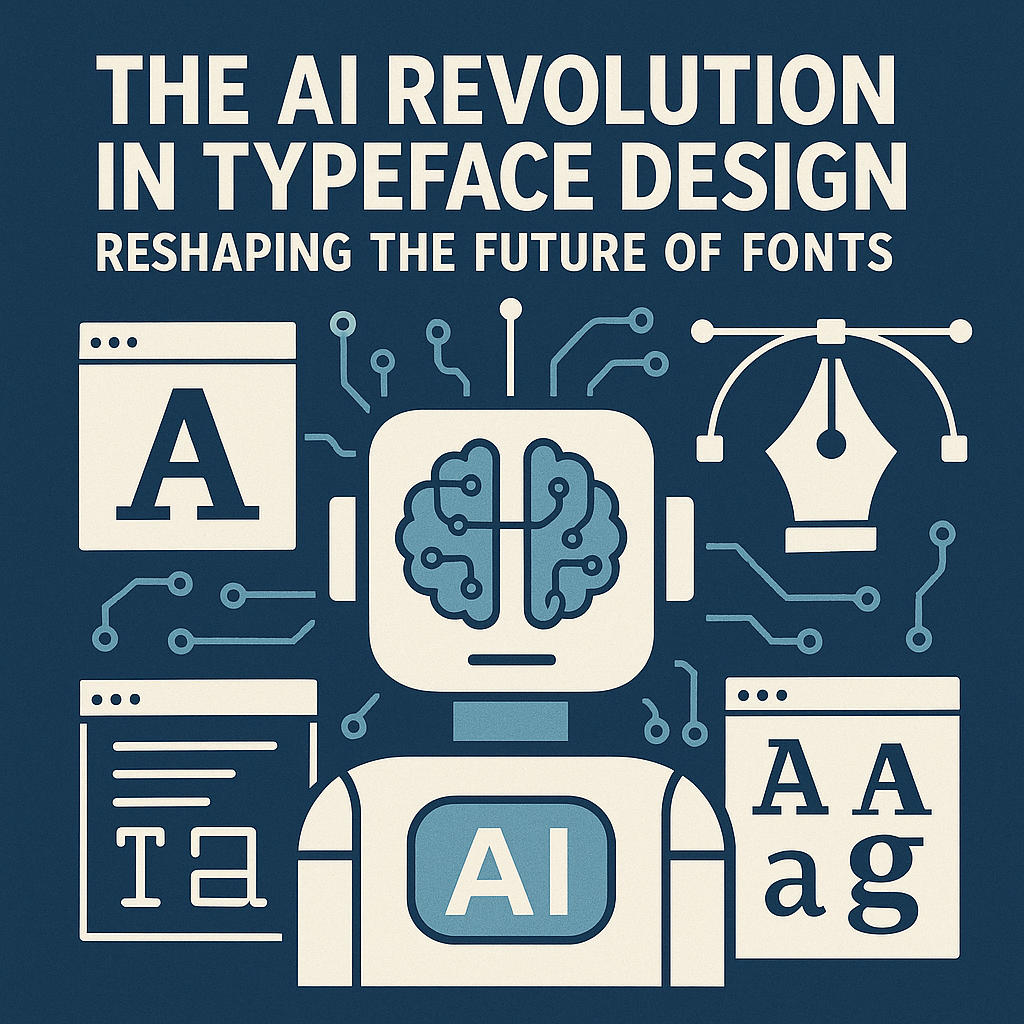
AI-Driven Typography Sparks New Era in Typeface Design
Artificial intelligence is ushering in a new era of typography. Generative AI tools are changing how typefaces are created and used, from algorithmically generated fonts to smart tools that suggest font pairings. A recent survey found that 91% of creatives believe AI tools can be useful in the type industry (Monotype, 2024). Traditional typographers are cautiously optimistic that AI will handle tedious tasks, allowing them to “focus on accomplishing their goals” (Monotype, 2024). However, the rise of AI-driven typography raises questions about creative control, authenticity, and the future of this centuries-old craft.
Generative Tools Transform Creative Workflows
AI is becoming a collaborator in font design. Generative AI models can produce legible, aesthetically pleasing letterforms, and even entire fonts, in a fraction of the time it takes to hand-draw and refine a typeface (Park University, 2023). “Fonts that once took months to develop can now be generated in minutes, if not seconds,” notes a report on AI font generators, which also states these tools “open up typography to a broader audience” by eliminating the need for deep technical expertise (Metapress, n.d.).
Designers are integrating these tools into their workflows. AI-powered design assistants can handle routine tasks, such as spacing glyphs or generating alternate weights, allowing designers to focus on creative direction. Mary Catherine Pflug, a senior director at Monotype, states, “At Monotype, we are leveraging AI to remove some of the more laborious, repetitive tasks so designers can focus on accomplishing their goals” (Monotype, 2024). Monotype’s late-2024 research indicates that top uses for AI in typography include visualizing fonts in real-world mockups and suggesting complementary font pairings (Monotype, 2024). Tools like Fontjoy, which uses machine learning to recommend harmonious font combinations, illustrate this trend of AI streamlining design decisions.
In large-scale graphic production, generative AI is proving its worth. Charles Nix, Monotype’s Senior Creative Director, says, “AI will likely automate many applications of typography, especially in use cases where scale and accuracy are important” (Hilder, 2025; Creative Bloq, n.d.). AI layout systems can generate thousands of banner ads or social posts in different languages with consistent typography, far faster than a human team. Nix suggests this could improve overall quality: “AI could potentially reduce the amount of poor typography we see while increasing the amount of good typography we see” (Yahoo, n.d.). By entrusting algorithms with repetitive production work, designers can ensure brand typography is polished and consistent.
Traditional Craft Meets Algorithmic Design
Rather than replacing human typographers, AI is prompting a new collaboration between humans and machines. Leading designers emphasize that human creativity and judgment remain irreplaceable. Charles Nix assures, “AI will take work, [but] it will probably not take jobs, at least not immediately” (Hilder, 2025). He believes AI is a powerful tool for handling grunt work, but a creative eye is needed to guide, edit, and refine the results. The designer’s role is evolving into that of a curator or “prompt engineer.”
Martín Azambuja and Andrea Trabucco-Campos write in Artificial Typography (2022), “AI necessitates a point of origin – a thought, an idea, an editor, a curator, someone who can guide it” (The Atlantic, n.d.). They conclude, “At the moment, it needs the human mind more than the human needs it,” emphasizing that an algorithm’s creativity is limited without human direction (The Atlantic, n.d.). Designers are finding that working “back and forth” with AI yields the best results. Indian typographer Khyati Trehan uses iterative exchange, bouncing designs between traditional tools and AI generators, to harness AI’s speed while maintaining her creative touch. She finds that relying on AI too much “takes the joy out of the making,” so she deliberately alternates between manual and AI methods (The Atlantic, n.d.).
AI still struggles with certain nuances of the craft. Early text-generating image AIs often mangled lettering. One Atlantic review quipped, “AI doesn’t know how to create words” (The Atlantic, n.d.). However, new systems like DeepFloyd IF and Ideogram (2023) can generate images with readable, stylized text (Park University, 2023). Veteran typographers note that an AI’s idea of a “perfect” letter can lack the intentional quirks that give fonts character. Gianpaolo Tucci says, “In this process, I’ve discovered the beauty of what I’ve called ‘aesthetic imperfections’” (The Atlantic, n.d.). The future of typography may belong to the interplay between humans and AI. Tucci reflects, “AI could standardize, but could also open up creative opportunities. Our duty is to shape the control and the coexistence” (The Atlantic, n.d.).
Democratizing Typeface Design for Everyone
AI is lowering entry barriers to type design. Historically, creating a new font was an expert-only endeavor. Design author Lakisha Davis writes, “Traditional font design has always been an artisanal, exclusive discipline… This complexity made font design costly and largely inaccessible to those outside professional design circles” (Metapress, n.d.). Now, AI is changing that dynamic. Davis explains, “The advent of AI in typography has been nothing short of revolutionary, tearing down the barriers that once made font creation an elite skill” (Metapress, n.d.).
New AI-powered platforms are turning anyone into a potential type designer. Creative Fabrica launched an AI Font Generator that allows users to generate a custom font by describing what they want. “Speed and automation have been ‘unleashed,’ with fonts generated in moments” (Metapress, n.d.). Davis adds, “Accessibility [is] amplified, with AI… opening up typography to a broader audience” (Metapress, n.d.). This democratization is putting more creative control in the hands of everyday content creators.
Established font makers are embracing these tools to enhance their work. AI can automate drudgery, such as generating diacritic characters or interpolating a full weight range. Nix suggests using AI “to take an existing weight and help us generate new masters to expand the design space for a family” (Creative Bloq, n.d.). These capabilities accelerate iterative design. Davis says, “By automating the technical aspects, AI empowers designers to focus more on their artistic vision, enhancing creativity” (Metapress, n.d.).
Big Tech and New Platforms Fuel Innovation
Major technology players are investing in AI typography tools. Adobe has integrated generative AI into its design software through Adobe Firefly. Anton Burmistrov used Firefly to morph letters into elaborate 3D artworks, earning a 2024 Adobe MAX Creativity Award (Adobe Blog, 2025). Burmistrov says, “Type has traditionally been a challenge for AI models, but Firefly can read shapes and apply my prompts in ways no other model can” (Adobe Blog, 2025). Adobe touts Firefly as an “AI-powered magic wand” for creatives (Adobe Blog, 2025). Adobe trains Firefly on licensed and public domain imagery to keep the tool “commercially safe” (Adobe Blog, 2024).
Google’s research teams have experimented with AI-driven design, developing models that can generate entire font families from a few reference characters. In 2023, former Google researchers launched Ideogram, an AI image generator specialized in typography, which “obliterates the competition” in rendering accurate text (Reddit, n.d.). DeepFloyd IF demonstrated nearly “perfect” generation of standard fonts (Park University, 2023). These advances are filtering into user-facing products. Monotype’s latest Type Trends report states that AI will ultimately “transform and mainstream typography” (LinkedIn, n.d.).
Navigating Challenges and Ethical Questions
Concerns about aesthetic homogenization exist. One commentator warned, “The democratization of design is quickly becoming the homogenization of design” (Creative Bloq, n.d.). Avoiding this “echo chamber” effect requires conscious effort. Another question is how AI-generated fonts fit into legal and licensing frameworks. Adobe trains Firefly only on content it has rights to (Adobe Blog, 2024). Creative Fabrica builds clear licensing into its AI font tools (Metapress, n.d.).
Finally, there’s the artistic integrity and human touch. Khyati Trehan admits, “Creative AI tools don’t make me feel creative… [it] takes the joy out of the making” (The Atlantic, n.d.). The consensus is that AI is a tool, not a replacement for human creativity. A design director told Creative Bloq, “AI is merely a mechanism,” and proof that AI and human creativity can coexist (Twitter, n.d.).